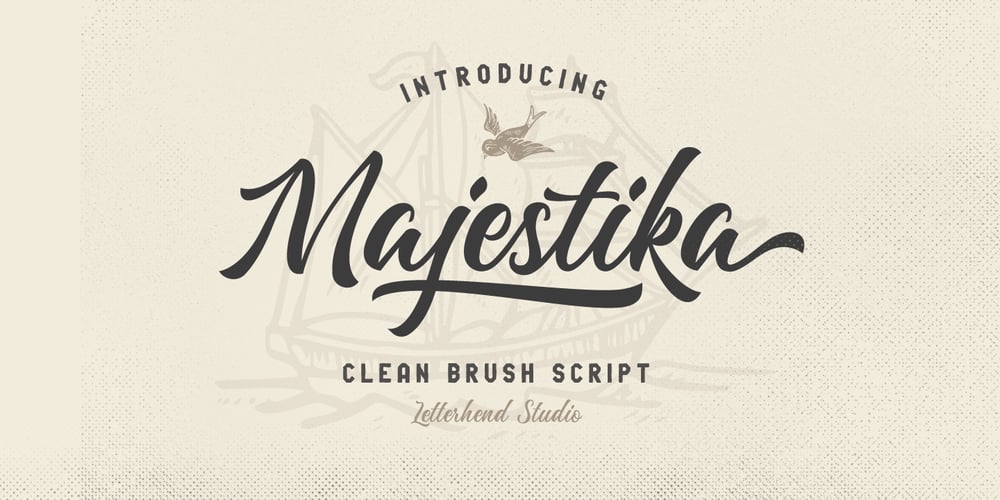
Majestika Script
Majestika Script font
Majestika Script Font Family was designed by Hendry Juanda, Sarid Ezra and published by Letterhend. Majestika Script contains 1 styles and family package options. Majestika Script is a beautiful modern calligraphy which is suitable for you who needs a typeface for headline, logotype, apparel, invitation, branding, packaging, advertising etc. This typeface is comes in uppercase, lowercase, punctuations, symbols & numerals, stylistic set alternate, ligatures, etc also support multilingual and already PUA encoded.